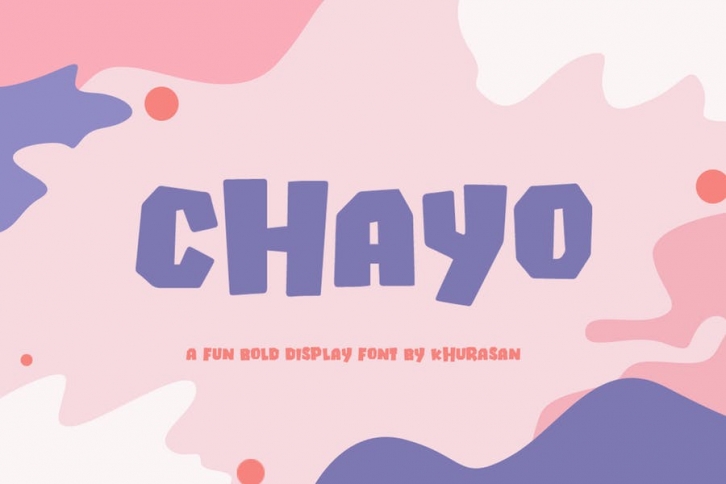
The Chayo is a fun bold display font, fresh & modern style. Chayo Font suitable for logo, branding, greeting card, poster and any design that you create.